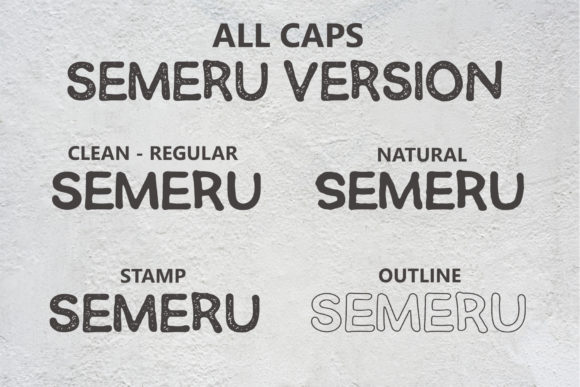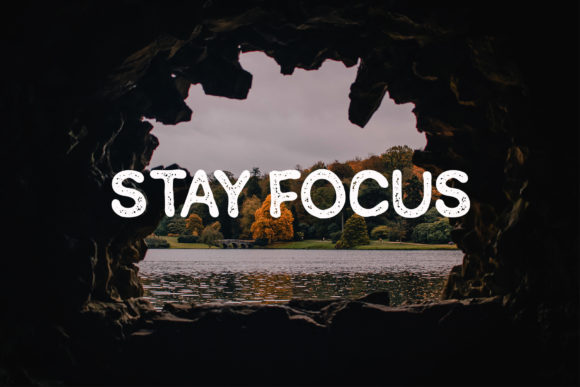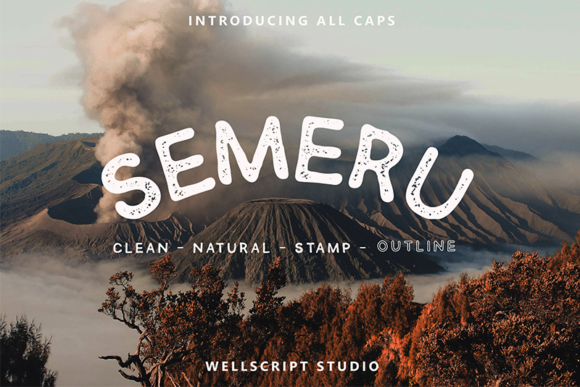
Semeru is a unique display font.
It has awesome alternates that make it perfect for a wide variety of projects .
Semeru Font offers exceptional quality and versatility, making it a valuable addition to your design toolkit. Whether you’re creating for personal projects or commercial use, Semeru Font delivers professional results.